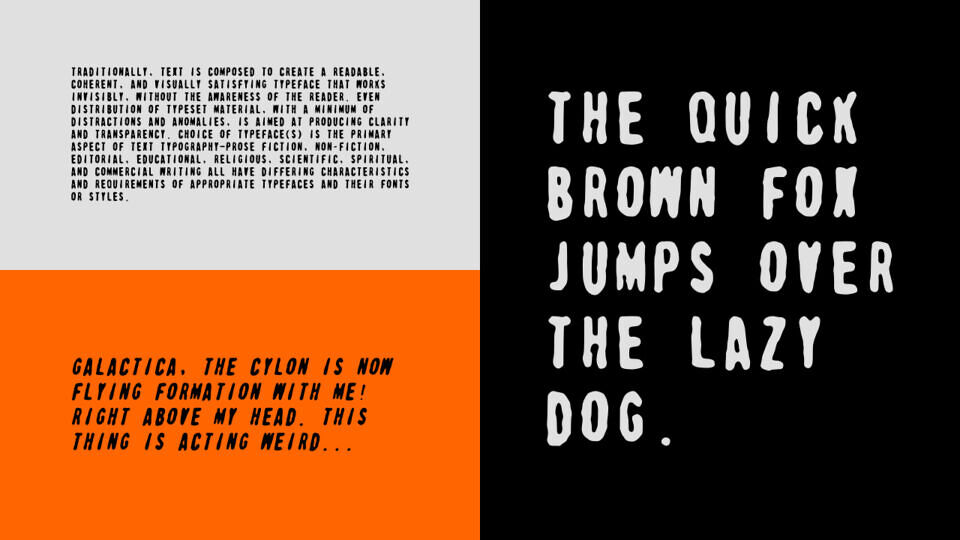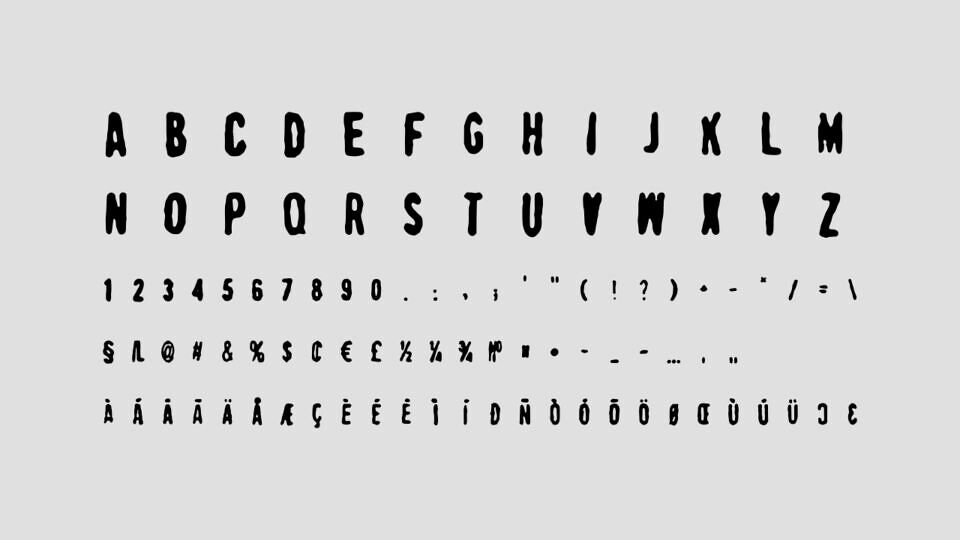
Stampcraft is a bold, textured typeface with two styles (Regular & Italic) and 219 glyphs, designed to mimic the rugged, imperfect edge & ink bleed of a real rubber stamp. It includes support for 18 languages and is monospaced enough to give consistent weight, while still feeling hand‐made and organic.
The irregularities in the letterforms (slightly uneven strokes, slightly rough perimeters) invoke a nostalgic, vintage or DIY aesthetic. Licensed as CC0, it works well for design projects that want a handcrafted, tactile, expressive touch.